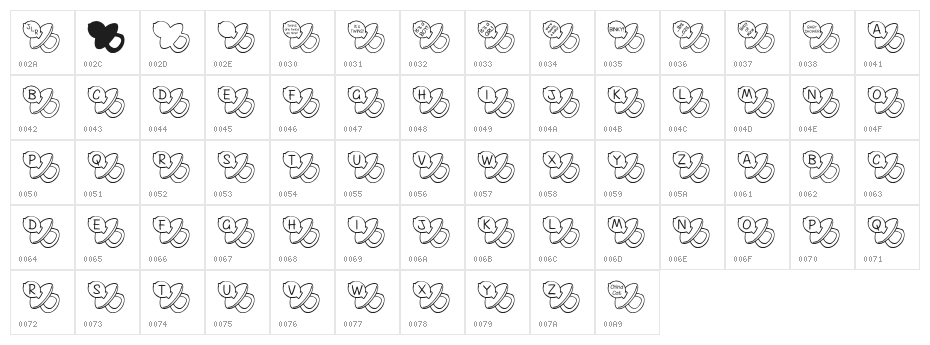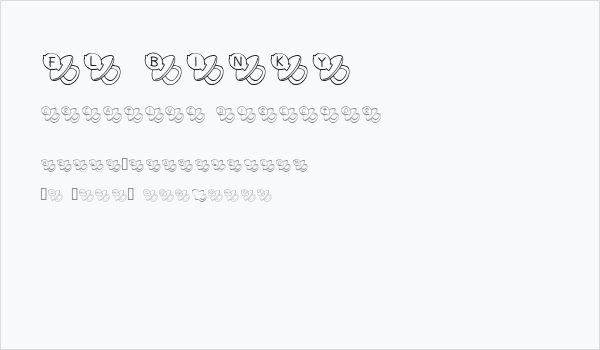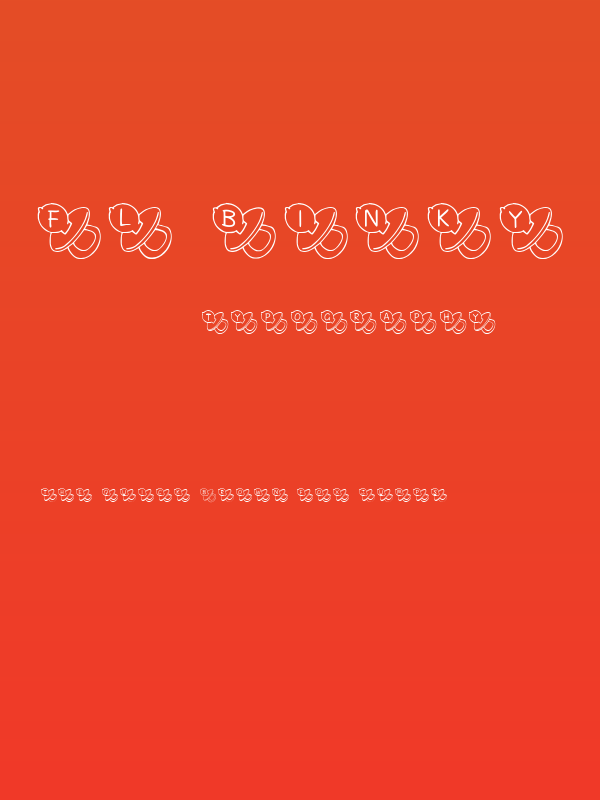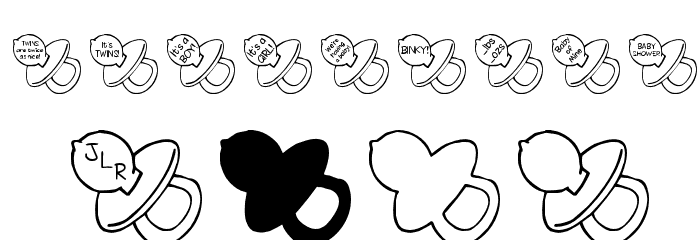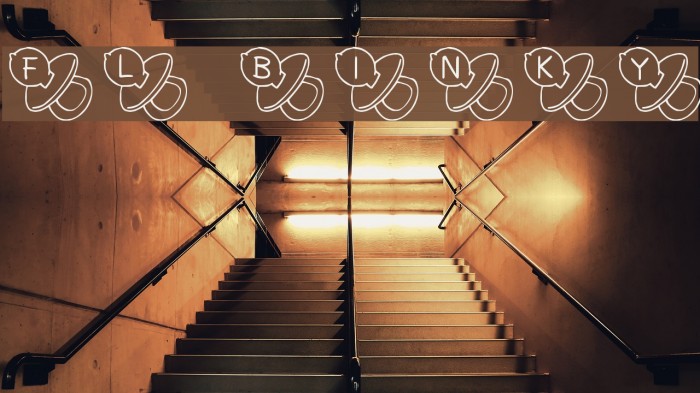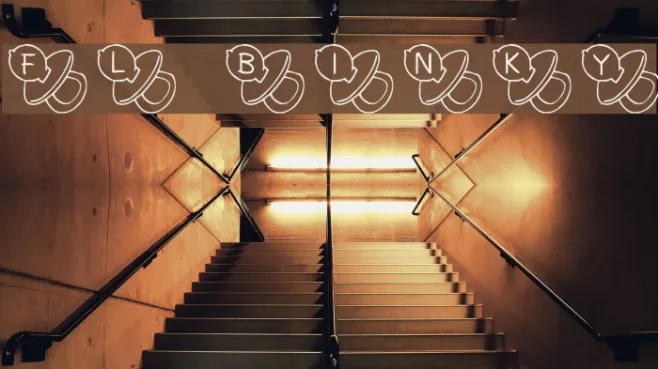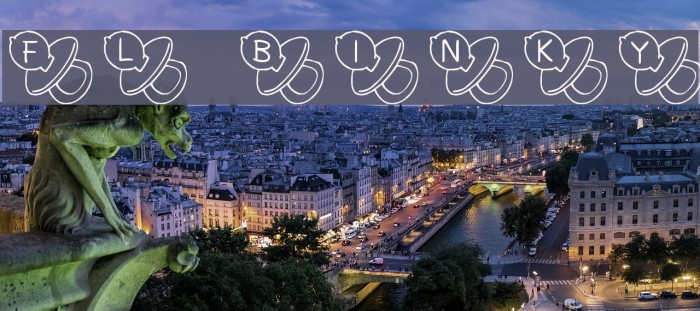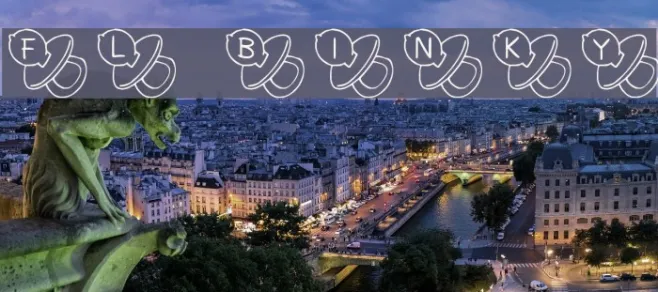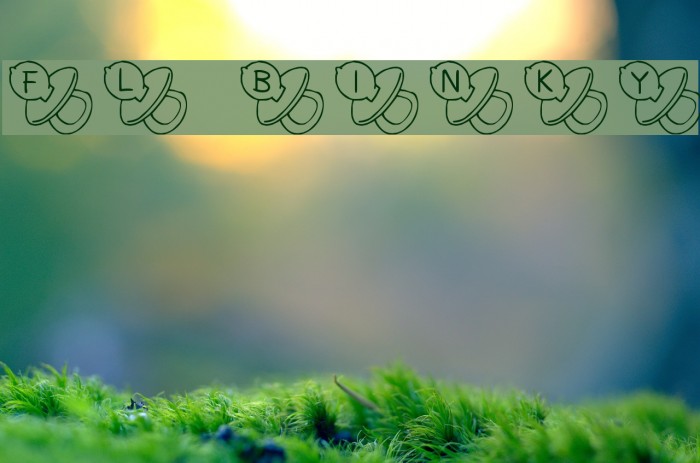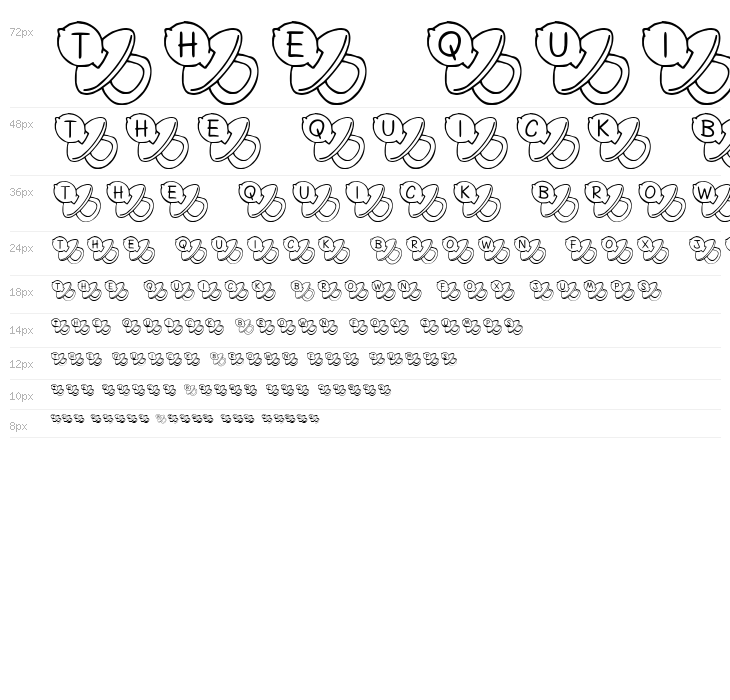
FL Binky Font
FL Binky Description
This playful and whimsical font is designed with each letter encapsulated within a pacifier shape, creating a unique and child-friendly aesthetic. The characters are bold and clear, making them easily legible despite the decorative elements. The font is perfect for projects that require a fun and lighthearted touch, such as children's books, baby shower invitations, or nursery decor. Its distinctive style ensures that it stands out, while the consistent design across all characters maintains readability. The font does not include lowercase letters, numbers, or special characters, focusing solely on uppercase letters. This limitation makes it ideal for short, impactful text rather than extensive body copy.
| Proposed Projects | Children's books, baby shower invitations, nursery decor. |